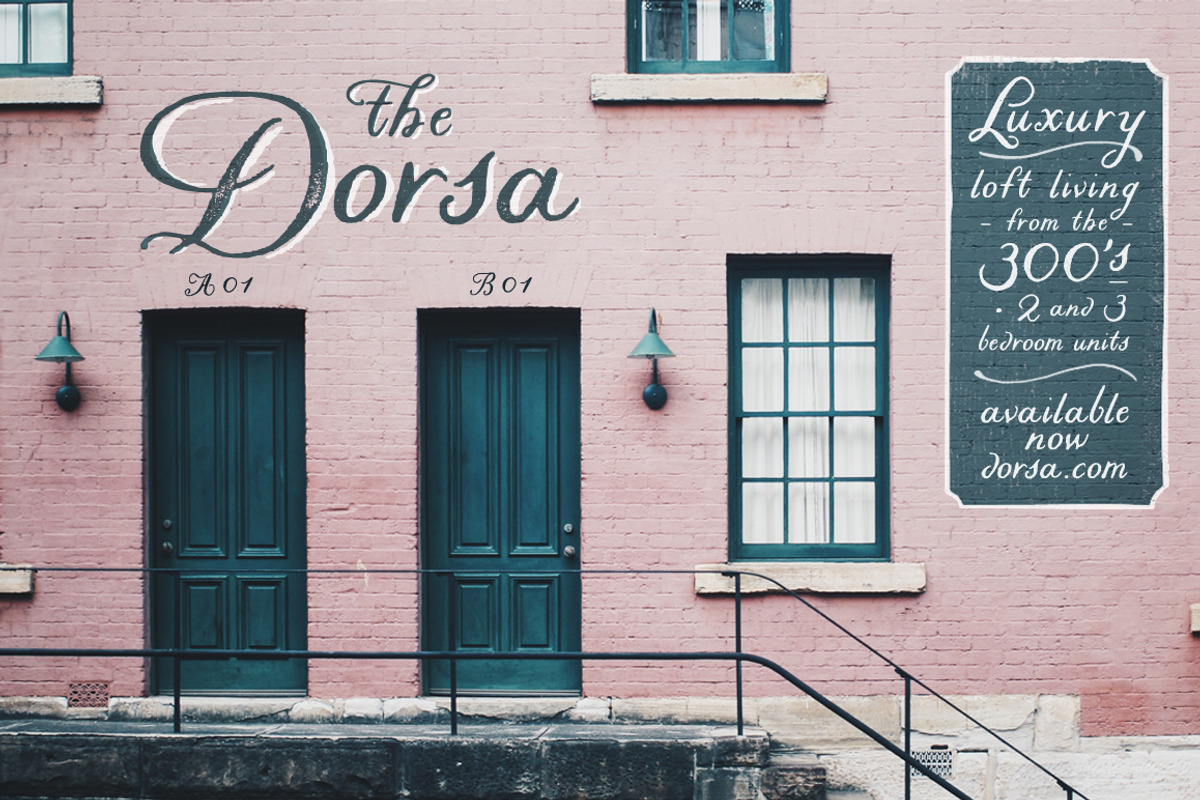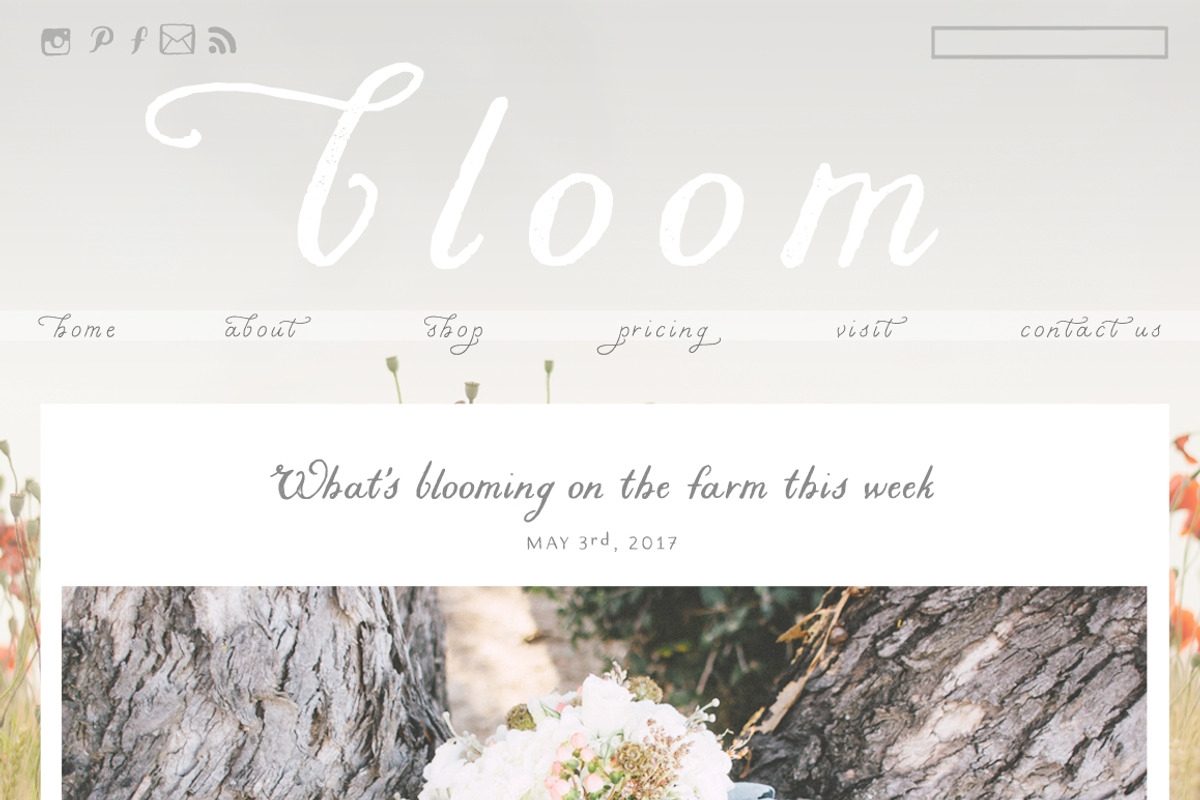
Liesel Printed Family
What happens when historical calligraphy and modern lettering kiss? Liesel!
This highly detailed, distressed font family is made for layering! Experiment with layering and blending modes to create realistic letterpress and screenprint text.
• Opentype features include: contextual alternates, stylistic alternates, swashes, true fractions, and old style numerals.